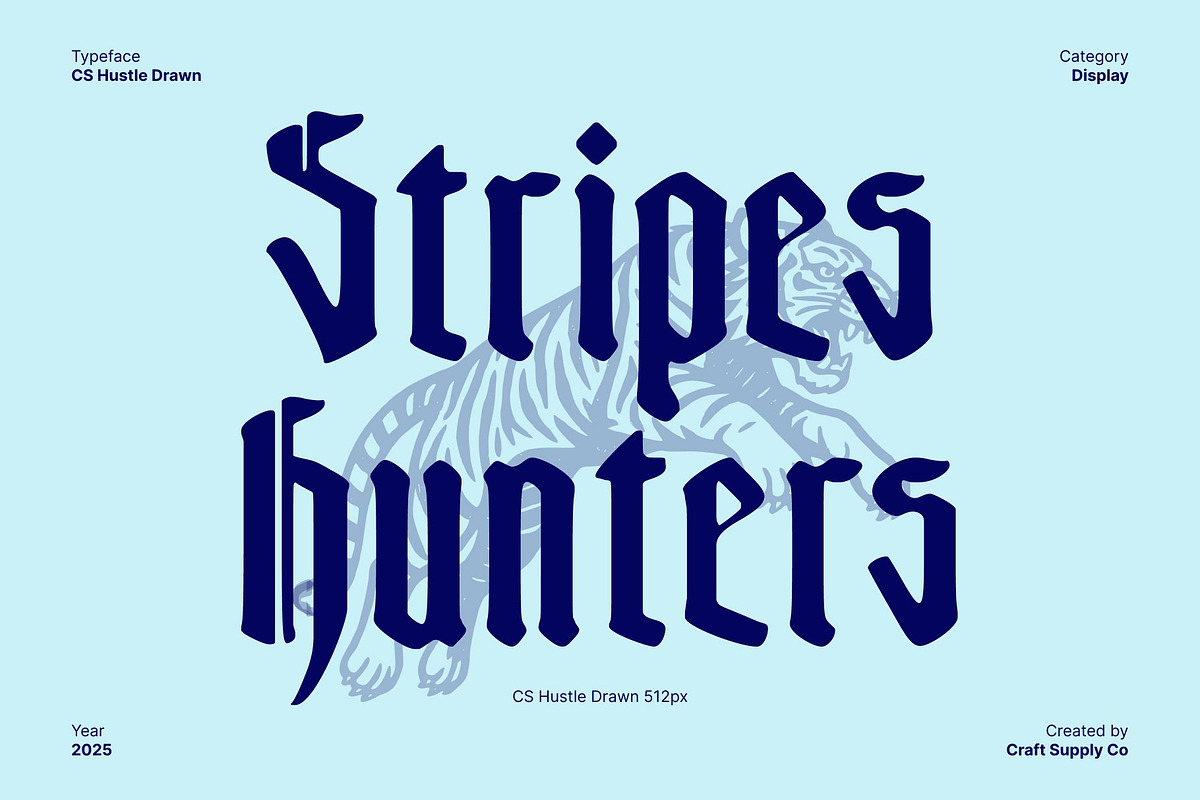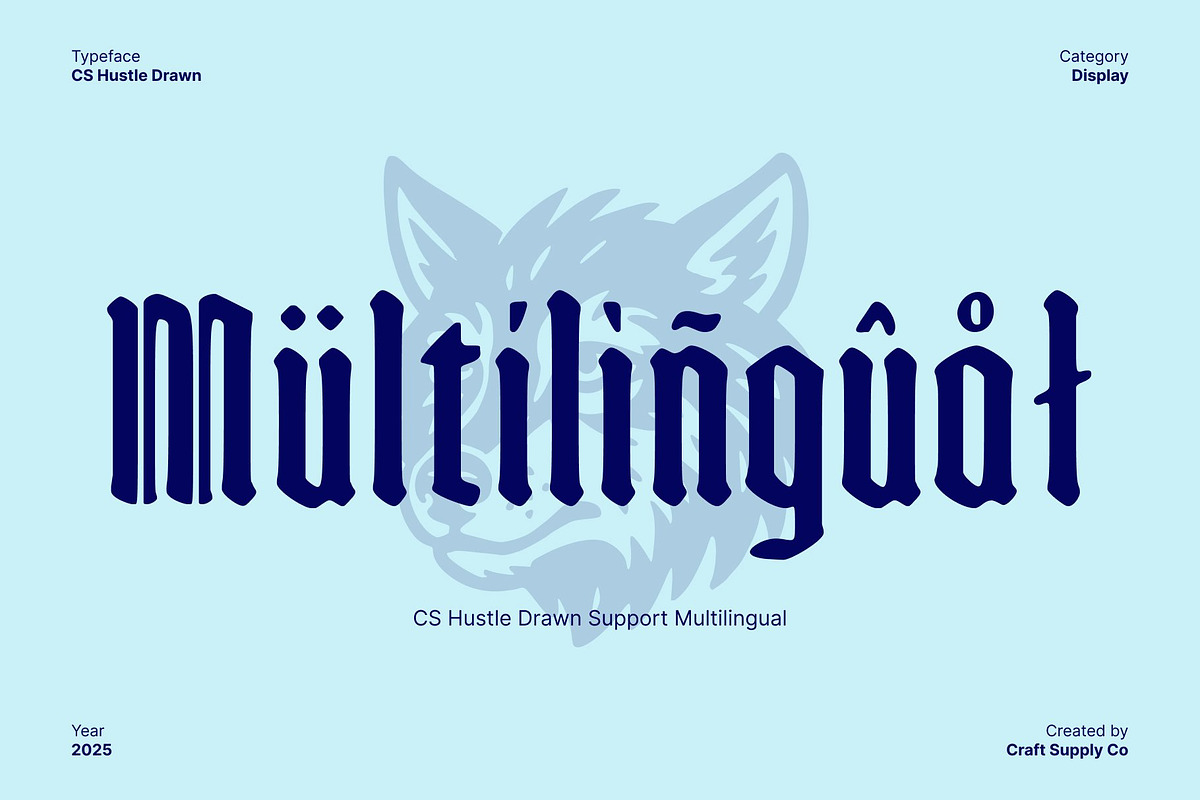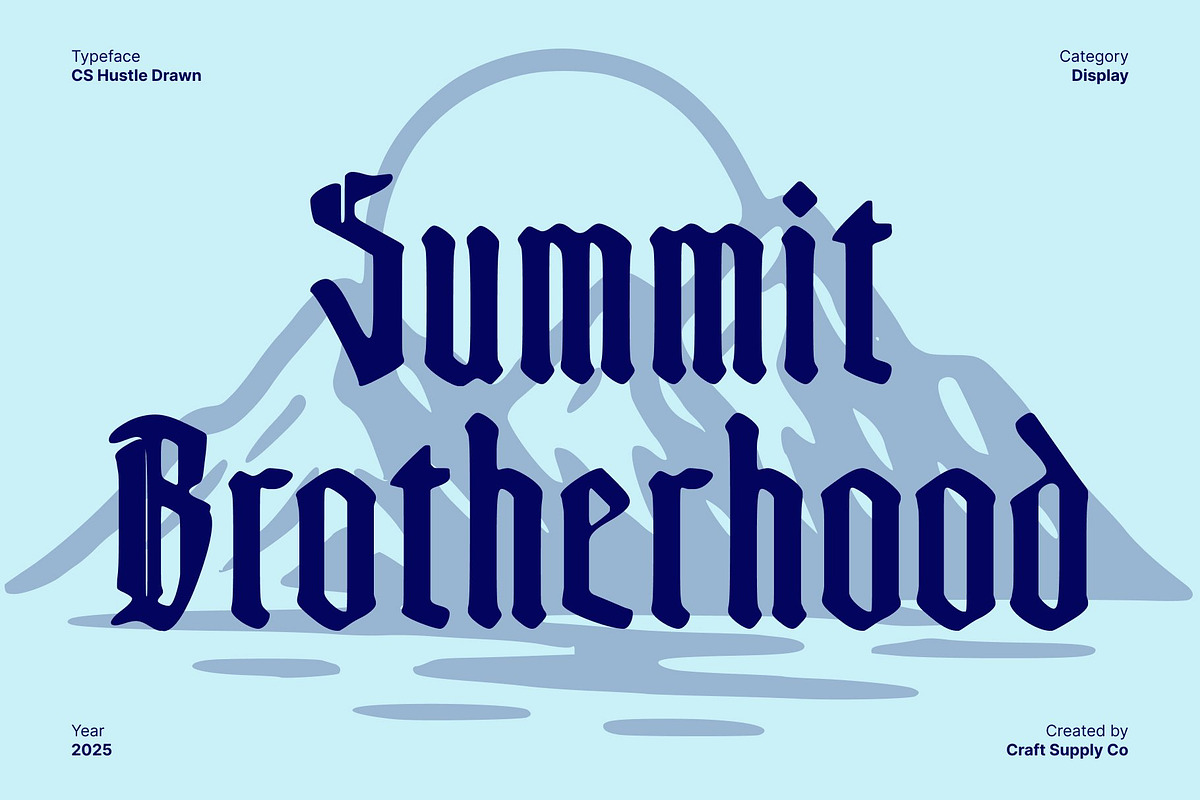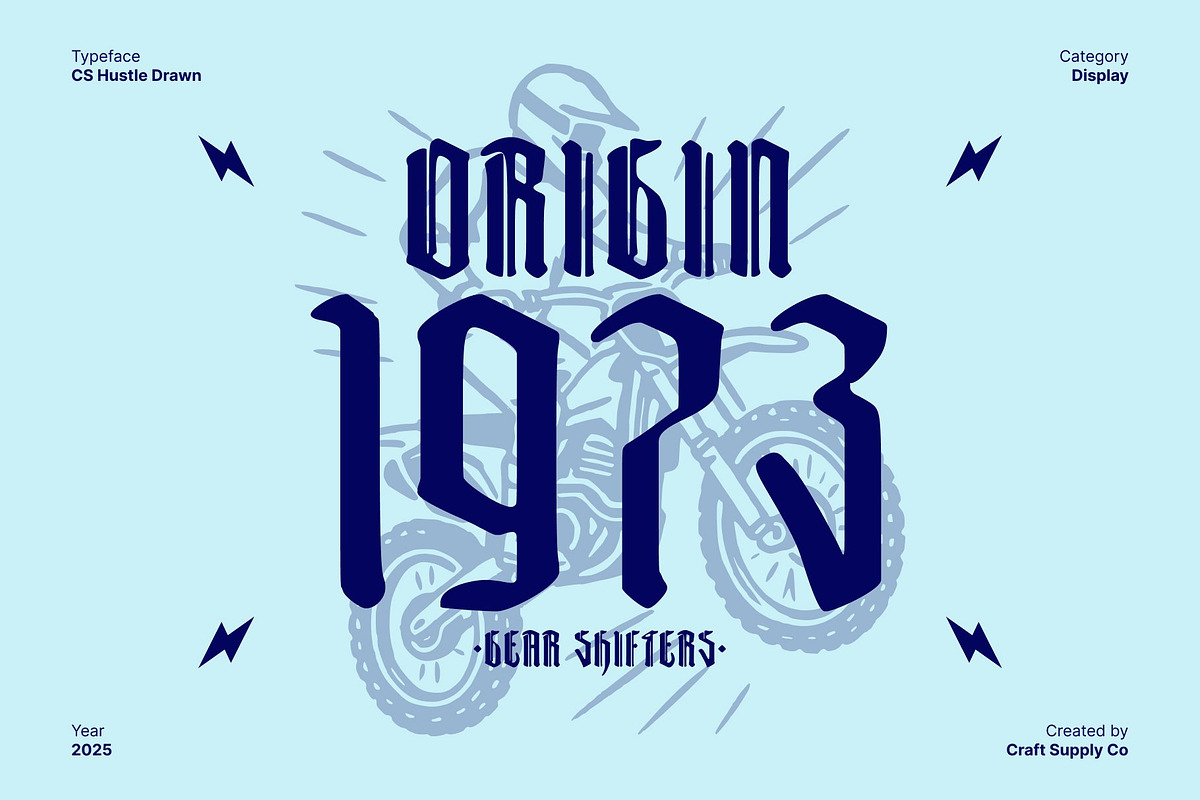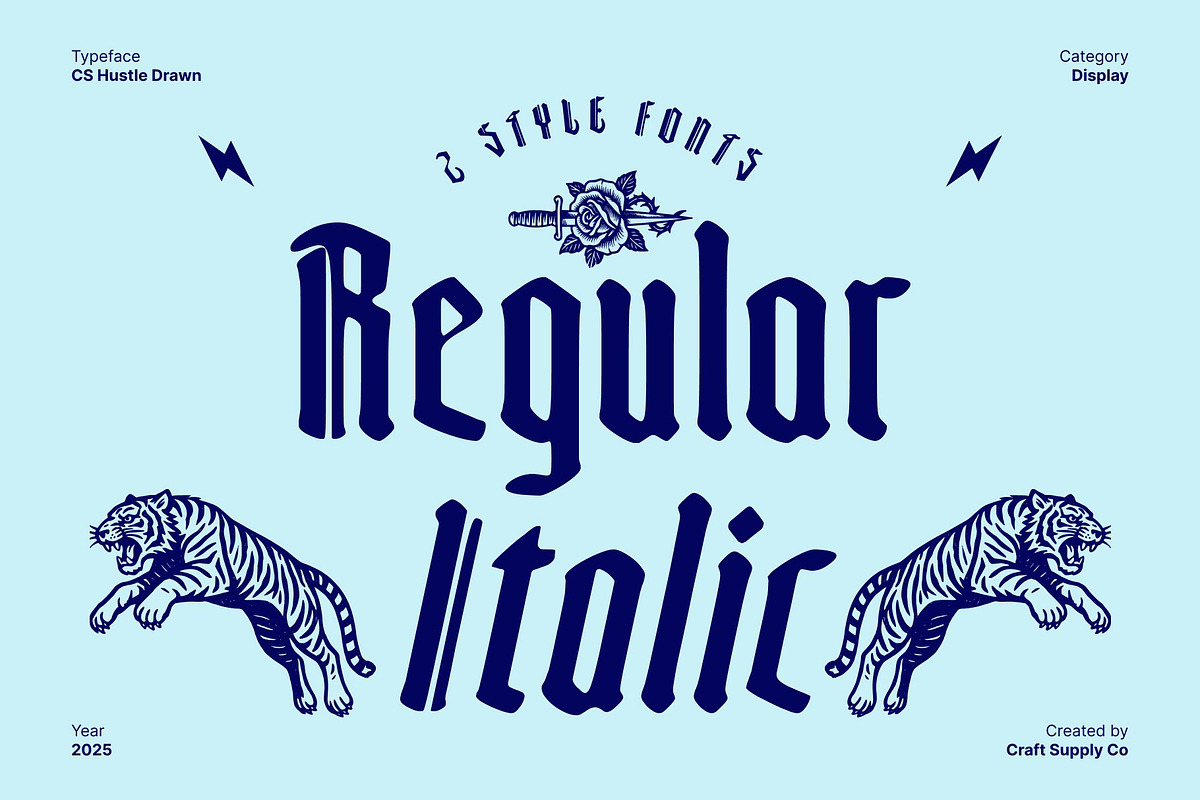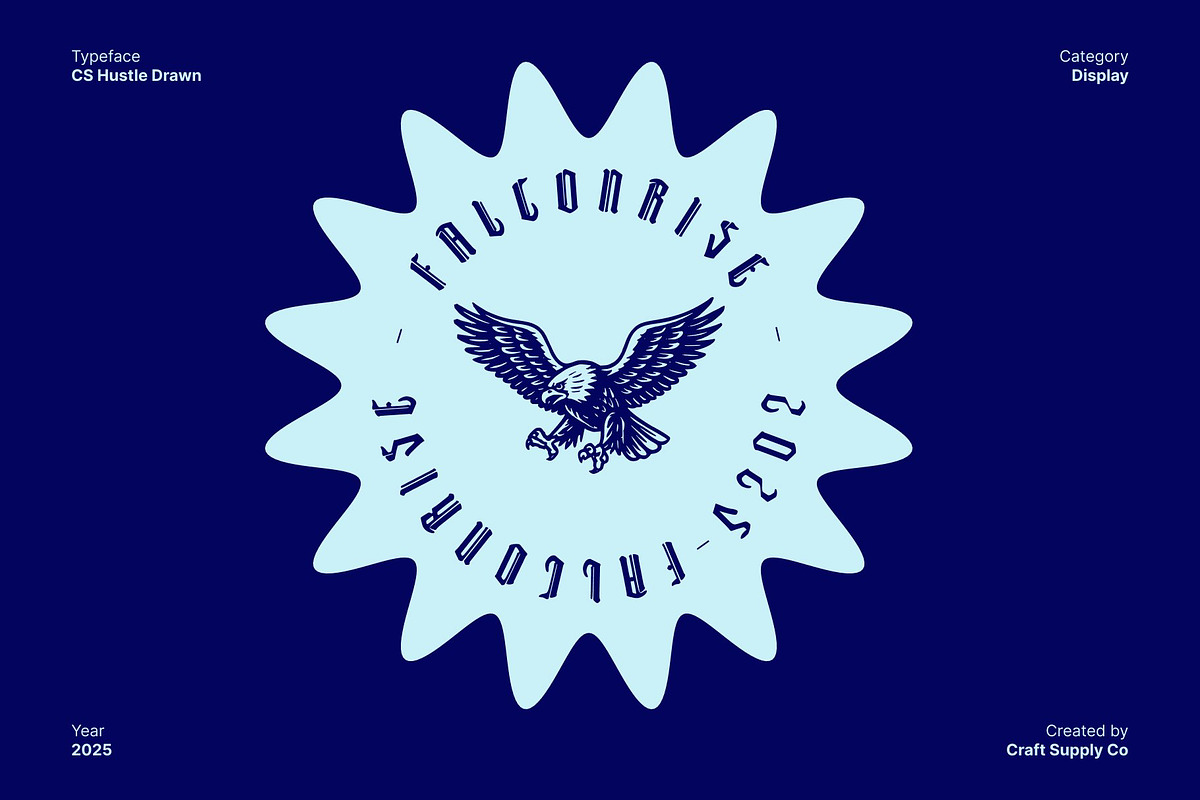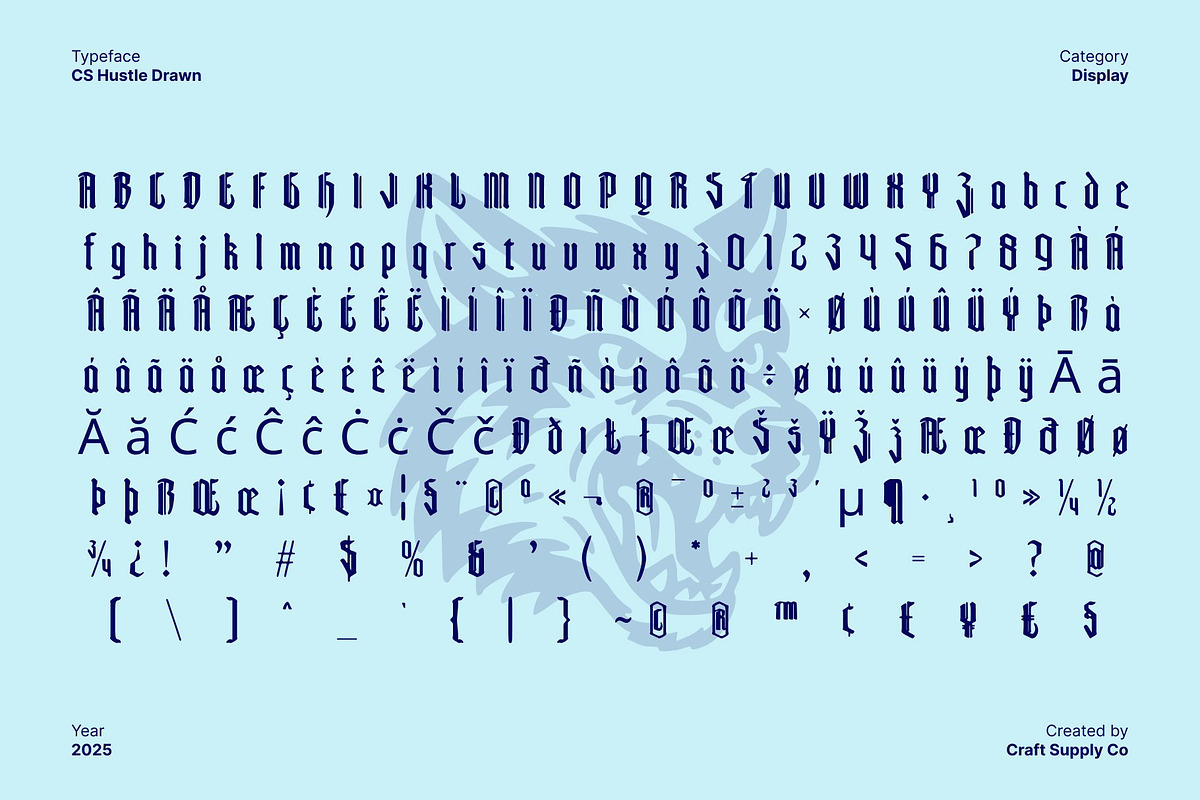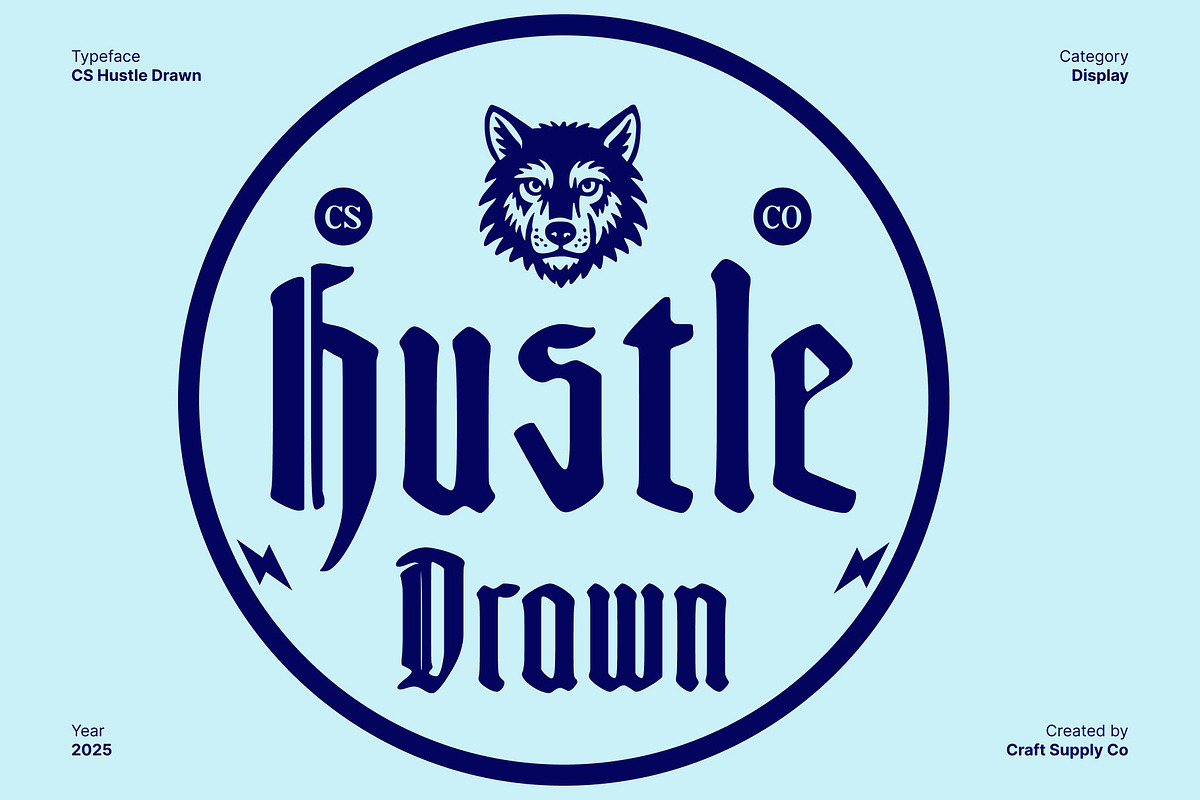
CS Hustle Drawn
CS Hustle Drawn – Bold Blackletter Display with Hand Drawn Drama
Bold Blackletter Forms with Classic Authority This is a striking display font built on traditional Blackletter shapes, giving it a sense of historical weight and timeless style. Its bold, decorative forms command attention and create a dramatic, classic aesthetic. Each character is carefully crafted to maintain readability while showcasing the intricate beauty of Blackletter typography.
Hand-Drawn Effect Adds Expressive Texture The drawn effect transforms this font into a truly unique typeface. Subtle handmade textures and irregularities give each letter an artisanal feel, adding depth and character without losing its structured elegance. This artistic detail infuses the font with life, creating a mysterious and expressive personality that sets it apart from standard Blackletter designs.
Ideal for Posters, Branding, and Book Titles This font excels in high-impact visual applications. Its dramatic Blackletter forms make it perfect for poster design, eye catching headlines, book covers, and distinctive branding projects. The handmade texture enhances its presence, ensuring your designs feel both classic and contemporary, with a bold visual voice.
A Typeface That Blends Tradition and Creativity Designed for projects that require personality and sophistication, this font balances the authority of Blackletter with the charm of handcrafted artistry. Its decorative forms, combined with expressive drawn details, make it ideal for designers seeking a dramatic, unique, and timeless visual statement.